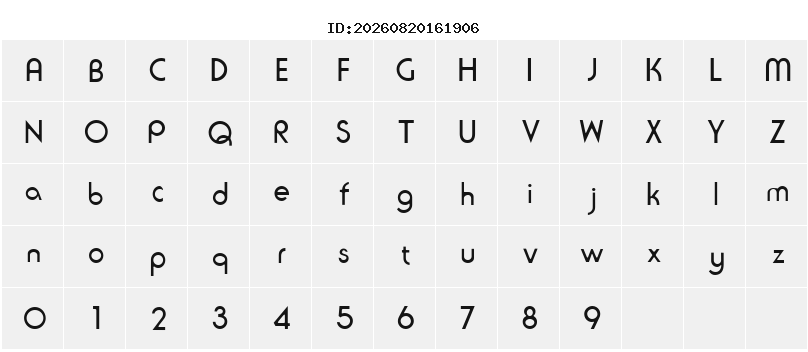
• Font Name: Serius SSi
Serius SSi.ttf is a modern, elegant sans-serif font designed for ultimate readability and visual harmony. Perfect for branding, headlines, web design, and print materials.